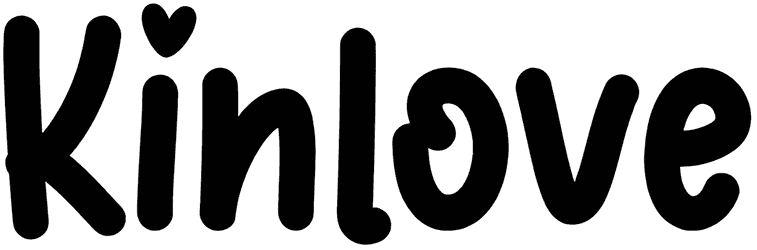
Kinlove Font
Kinlove has an innate feature to create interest in texts and can keep viewers for a few moments. This handwritten font has a childish look without numbers and can bring you joy and excitement in colorful projects.
The simplicity hidden in this script font has smoothed the unevenness of the path of message transmission and communication with the audience. So if you’re looking for the perfect font to encourage people to participate in a summer festival or school project, give Kinlove a try.